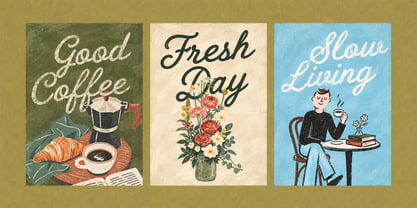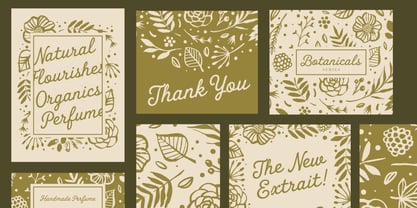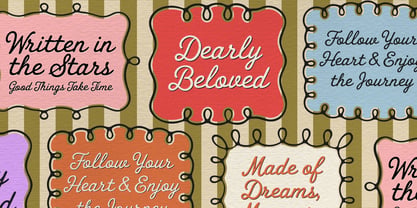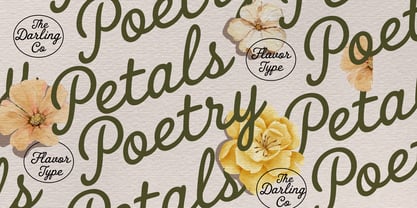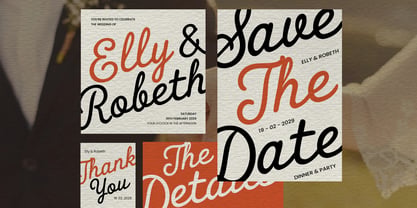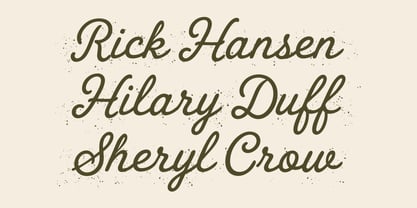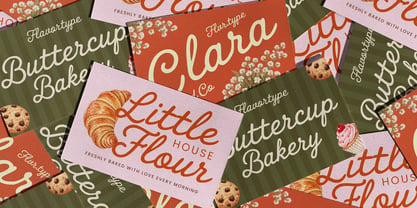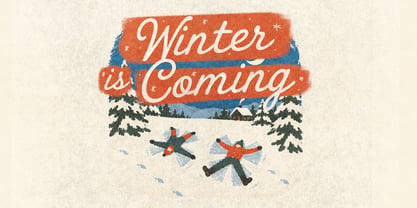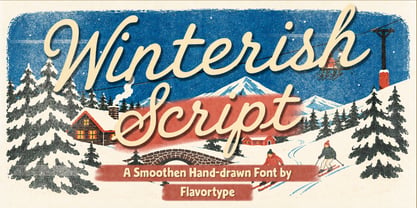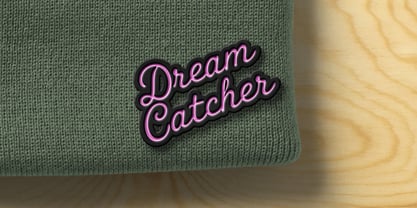
Winterish
by Flavortype
The Winterish Font Family was designed by Ilham Herry, Adam Fathoni Haris, panji nugroho, Rizky Setyaludin and published by Flavortype. Winterish contains 1 styles. More about this family
Winterish Script is a smooth, hand-drawn script with a cozy vintage feel. It has a relaxed brush-like rhythm that gives your lettering a warm, handmade character without feeling too polished or formal.
It works especially well for winter designs, holiday cards, coffee shops, bakeries, packaging, labels, logos, invitations, apparel, and seasonal branding. The flowing connections and playful letterforms make it easy to create expressive headlines while keeping that nostalgic, crafted look.
Winterish Script is also versatile beyond winter-themed projects. Pair it with a serif or simple sans serif for a more balanced layout, or let it stand on its own for a stronger handmade statement.